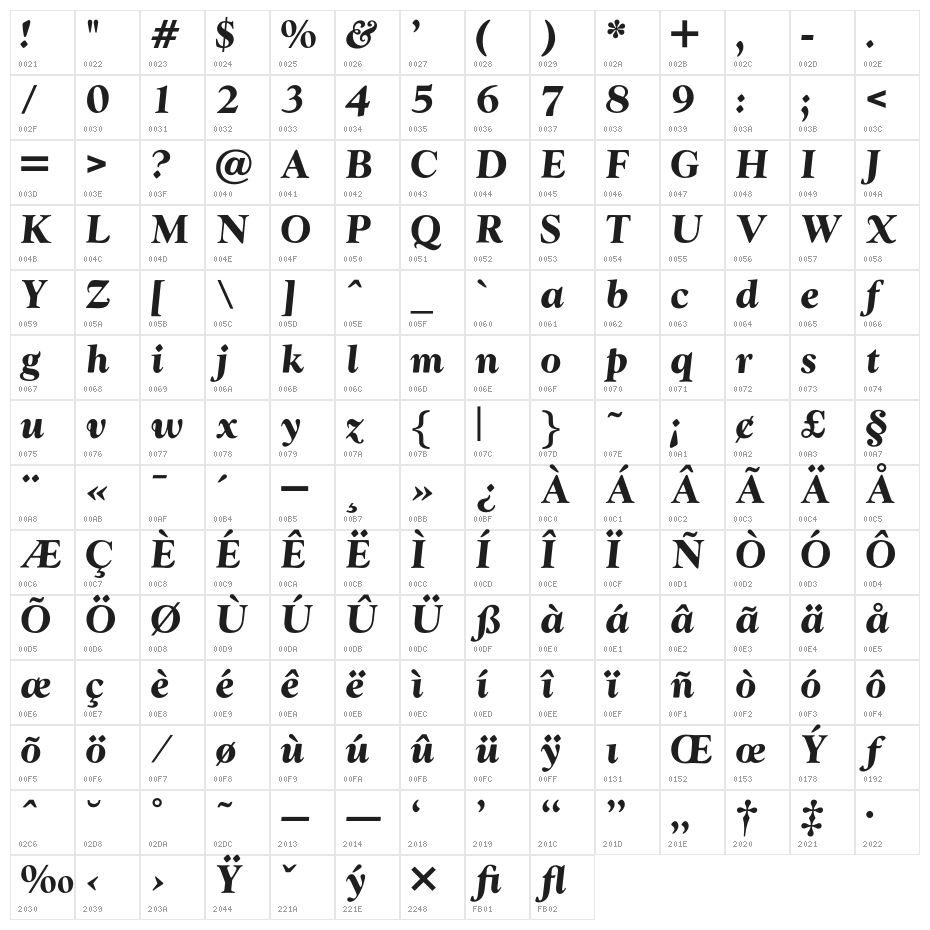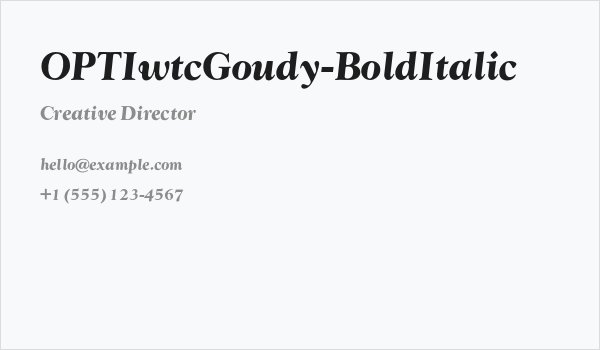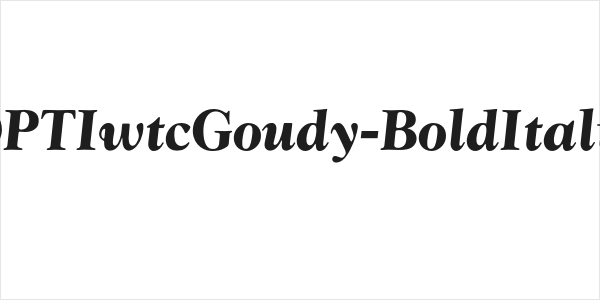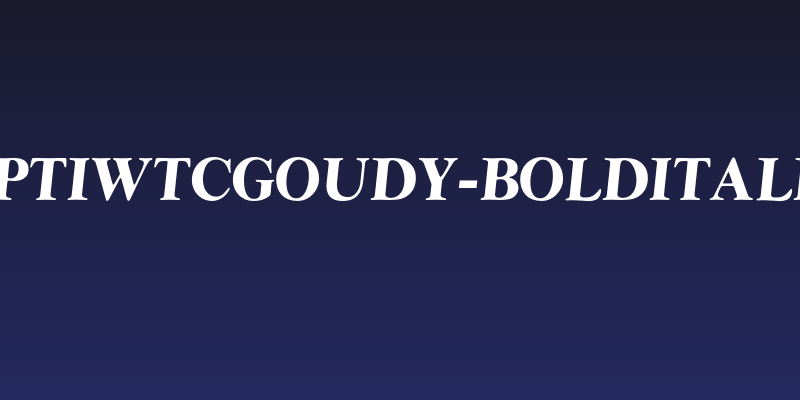
OPTIwtcGoudy-BoldItalic Font
OPTIwtcGoudy-BoldItalic Description
This font features a classic and elegant serif style with a bold and italicized appearance. The characters exhibit a traditional design with pronounced serifs and a slight slant, giving it a sophisticated and dynamic look. The uppercase letters are well-proportioned, while the lowercase letters maintain a consistent flow, enhancing readability. The numerals are clear and distinct, complementing the overall aesthetic. Special characters are thoughtfully designed, maintaining the font's cohesive style. This font is ideal for projects that require a touch of elegance and formality.
| Use Case | Headlines, Logos, Editorial design |
| Proposed Projects | Ideal for formal invitations, book covers, branding, and editorial design. |